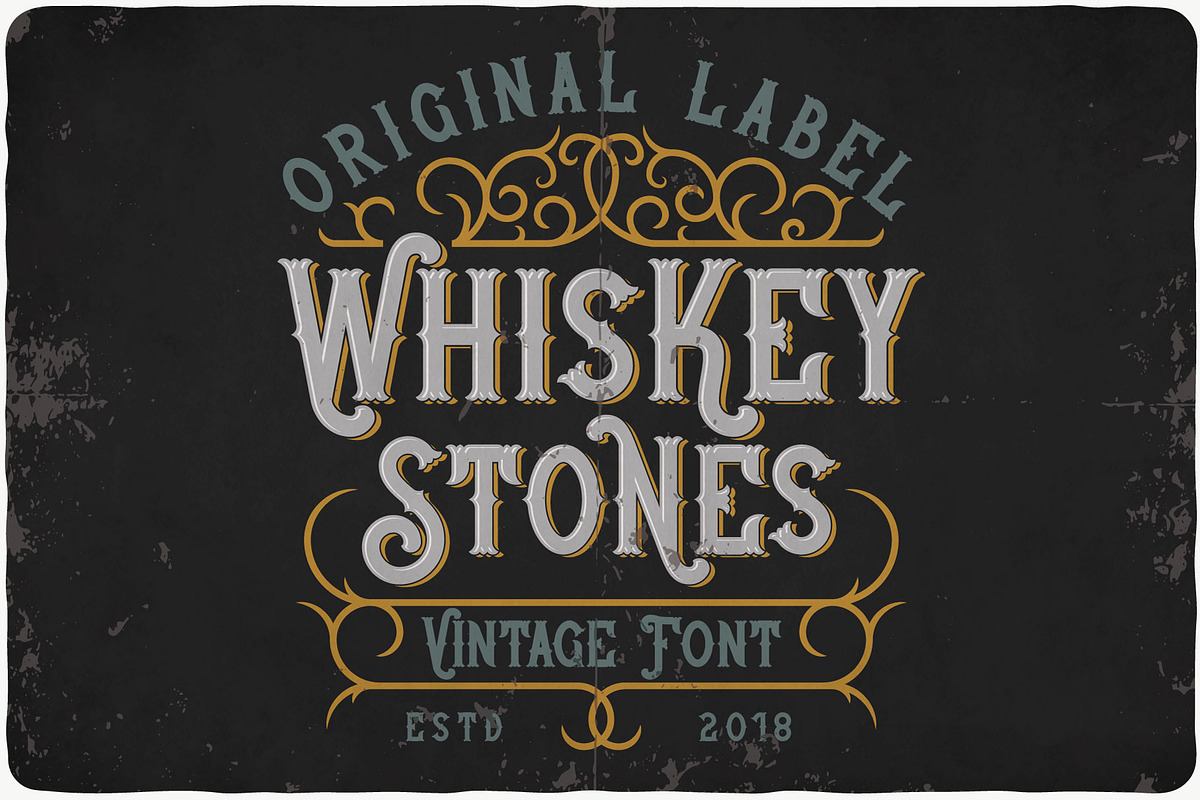
Whiskey Stones Typeface Free Download is a bold, vintage-inspired display font that captures the rugged charm of classic Americana. With strong serifs, aged textures, and a handcrafted feel, this typeface is perfect for whiskey labels, bar signage, apparel design, posters, and branding that calls for grit and heritage.
Designed to evoke the spirit of old saloons and handcrafted quality, Whiskey Stones Typeface Free Download brings authenticity and attitude to your creative projects. Its bold character makes it a standout choice for logos and headlines that need to make a strong, memorable impression.